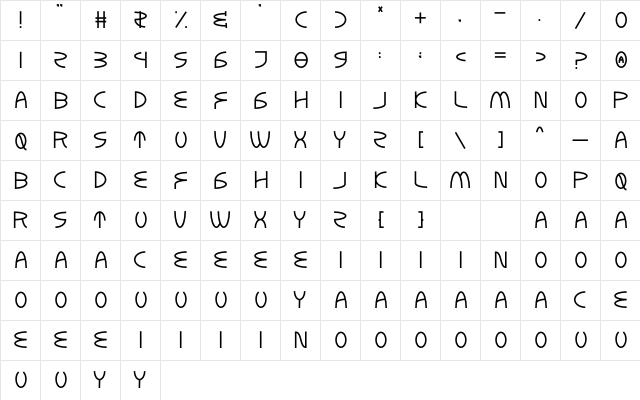
Mixqueen Regular
Design Context for Mixqueen Typeface
Mixqueen is a composed and adaptable typeface that performs quietly and consistently across a wide range of design contexts.
Pro Tip: Pair Mixqueen with a font of contrasting weight or personality to build a more expressive typographic hierarchy.